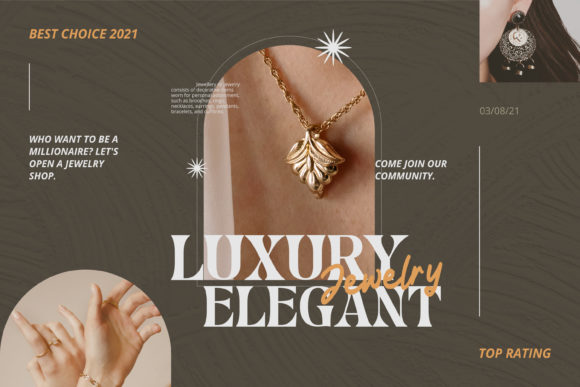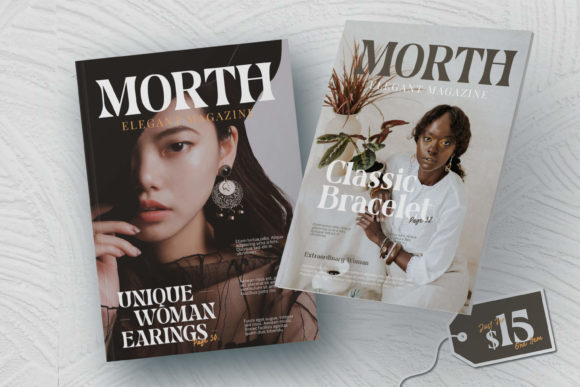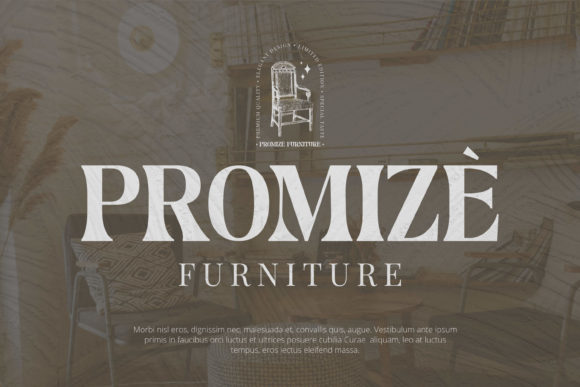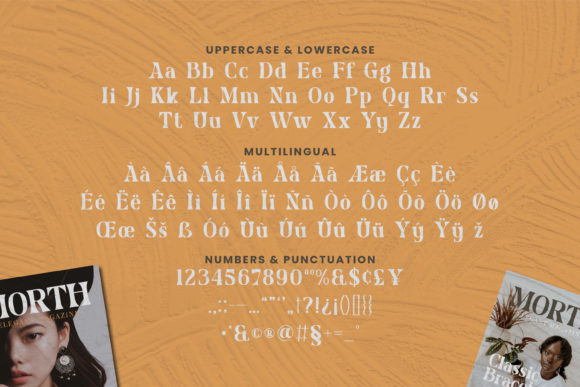
Introduction to Naveta Font Font
Fonts play a crucial role in design, and the Naveta Font font is a typeface that brings both character and versatility to any project. Whether you’re working on a branding project, a website, or a print design, the Naveta Font font offers a unique style that can elevate your work.
Naveta is a thick lettered and elegant serif font.
It is imposing and features uniquely shaped letters, and as a result, it will easily match a wide range of creations that require a distinct touch .
Key Features of Naveta Font Font
Why Choose Naveta Font Font?
The Naveta Font font is more than just a typeface – it’s a design tool that helps you communicate your message with style and clarity. Its unique character set and versatile design make it suitable for a wide range of applications, from elegant invitations to bold headlines.
With its carefully crafted letterforms and balanced proportions, the Naveta Font font ensures readability and visual appeal across all mediums.
What makes Naveta Font font special?
The Naveta Font font stands out with its unique design, exceptional readability, and versatility across various design applications.